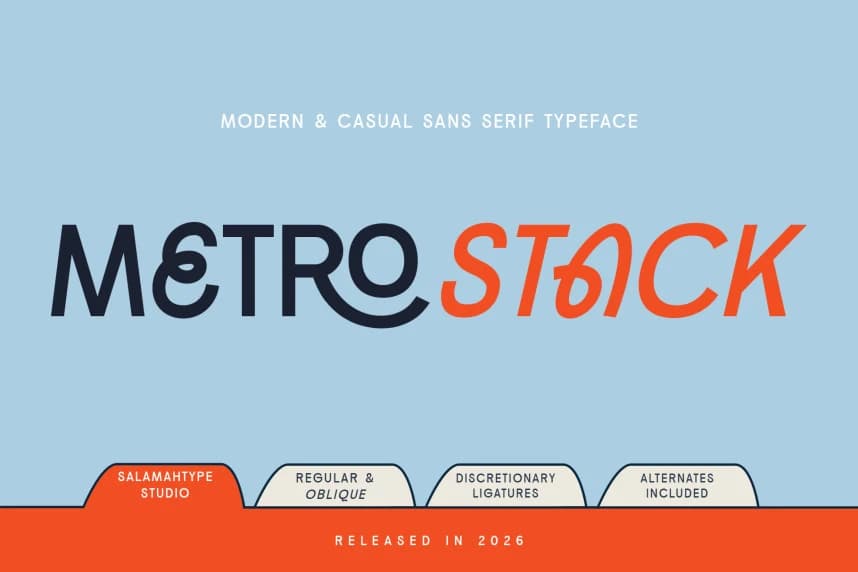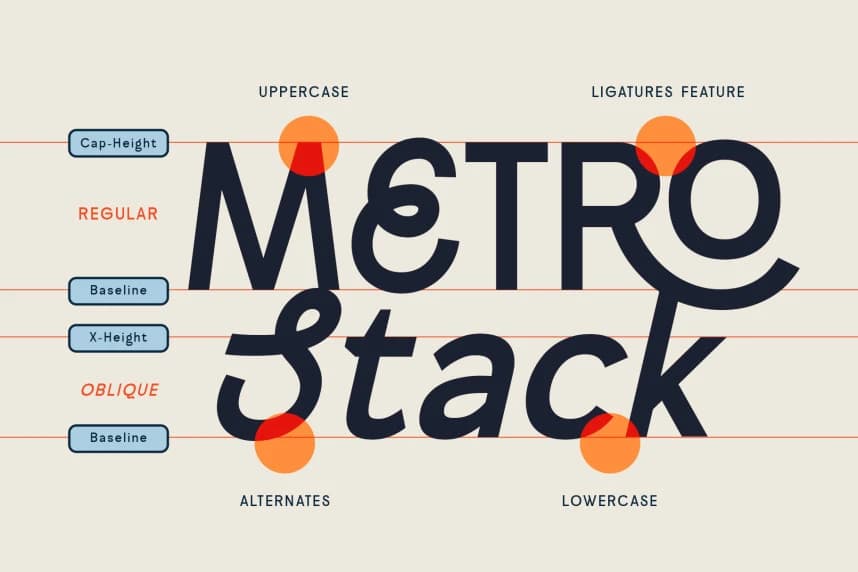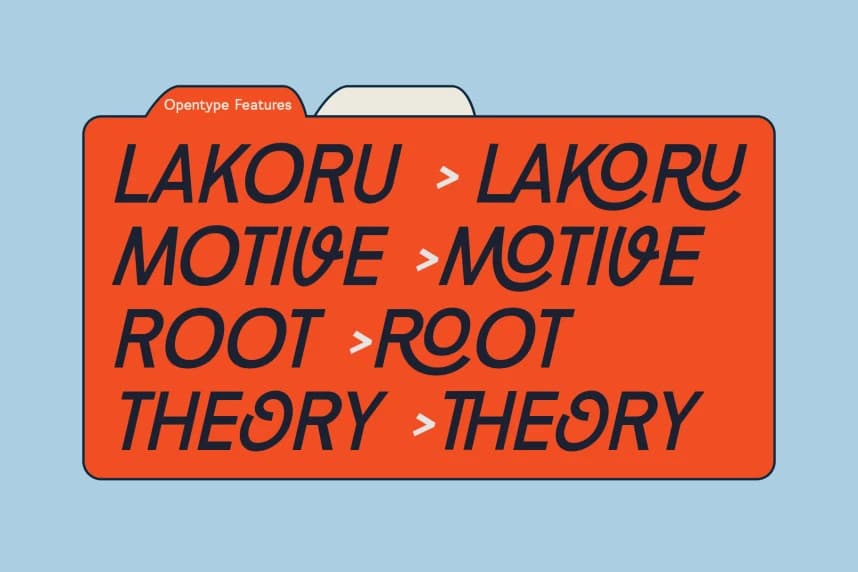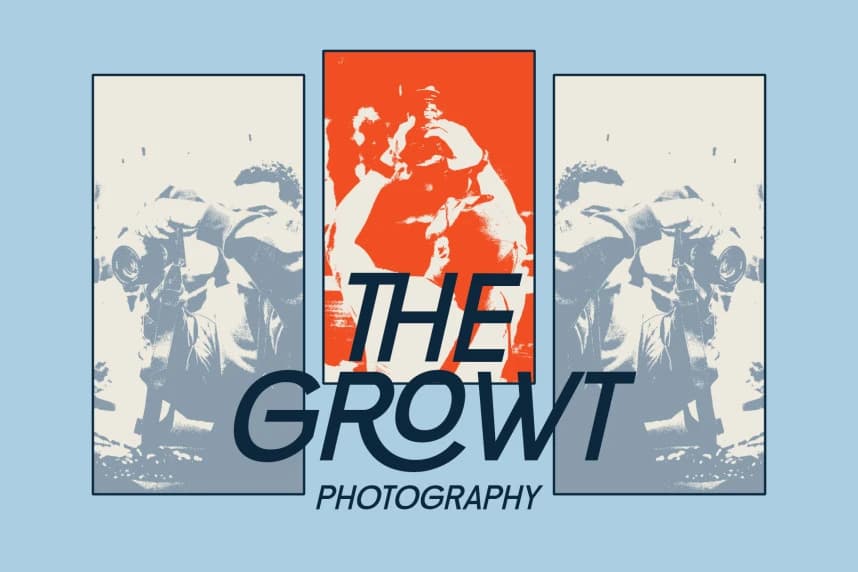
Metrostack Font
Metrostack Font is a bold and unique sans serif typeface designed to bring a strong modern character to your creative projects. With its clean structure, distinctive letterforms, and stylish details, this font delivers a confident and eye-catching look while still feeling versatile and professional.